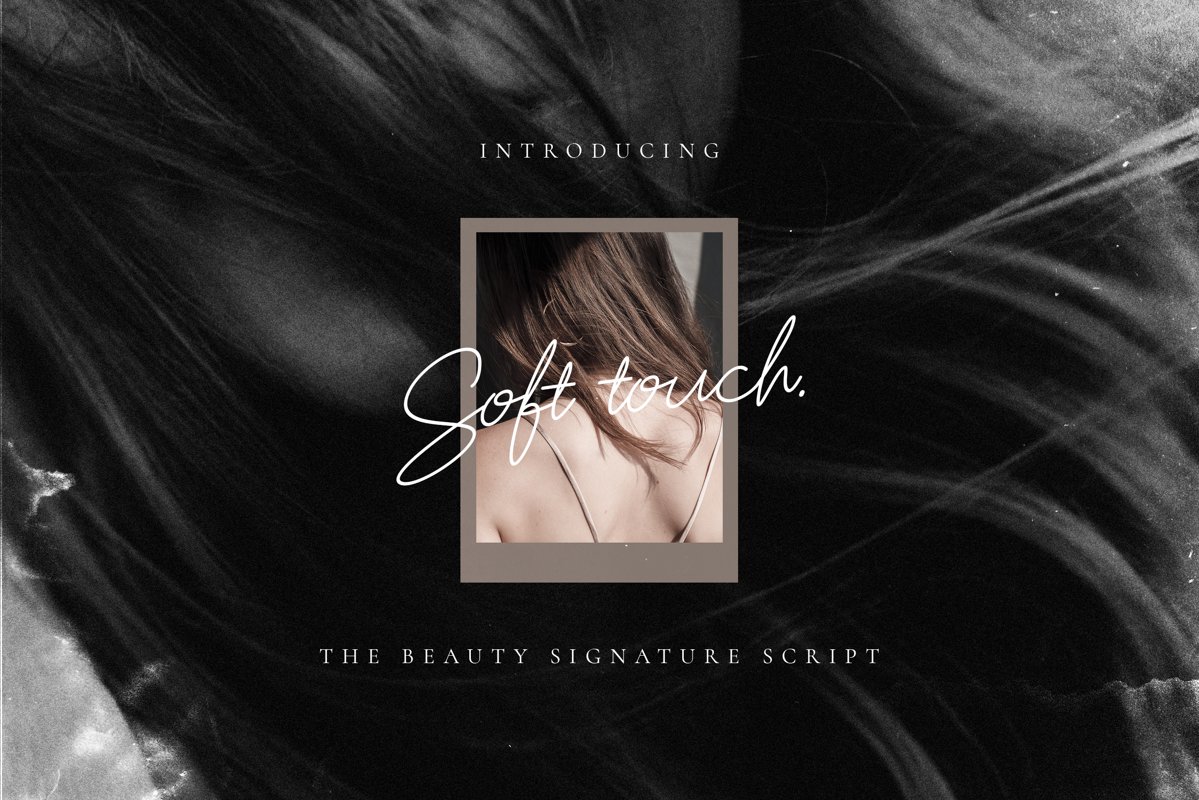
Soft Touch Signature Script Font
SoftTouch
Introducing Soft Touch, a feminine, but slightly edgy and fun handwritten script font.
Every single letters have been carefully crafted to make your text looks beautiful.
With modern script style this font will perfect for many different project
ex: photography, watermark, quotes, blog header, poster, wedding, branding, logo,
fashion, apparel, letter, invitation, stationery, etc.